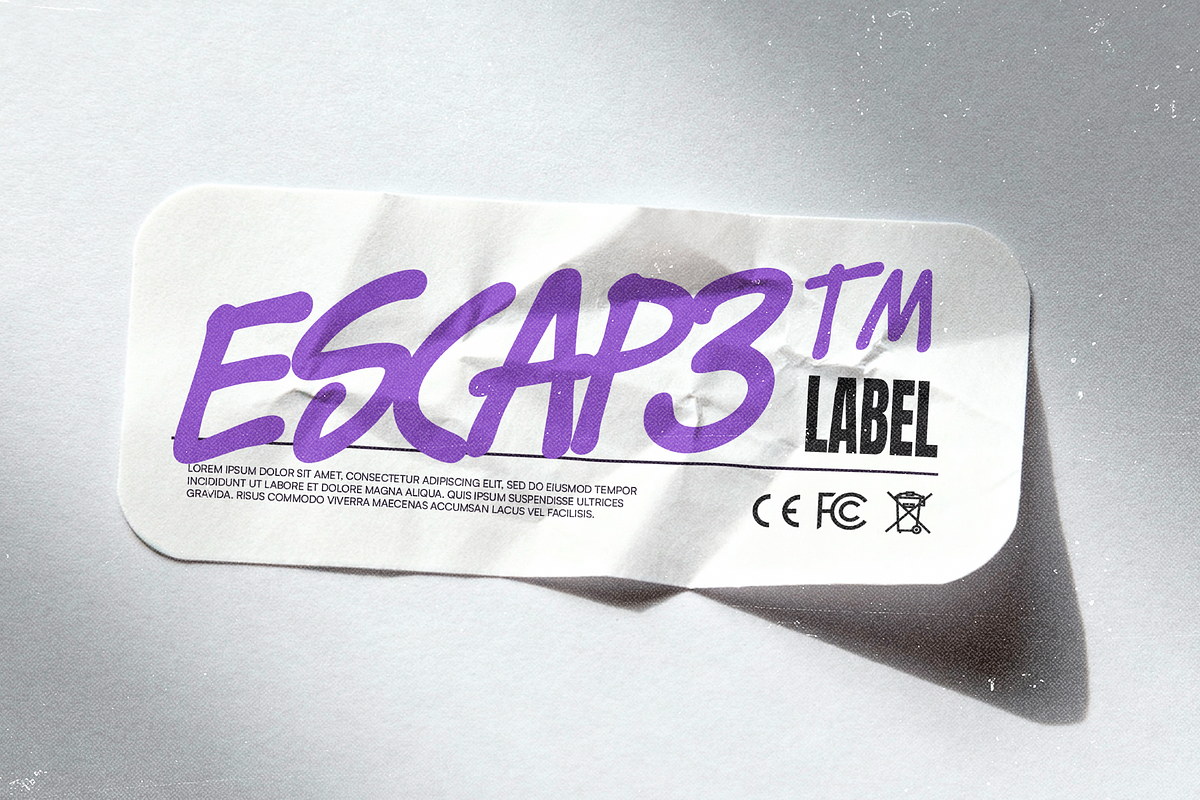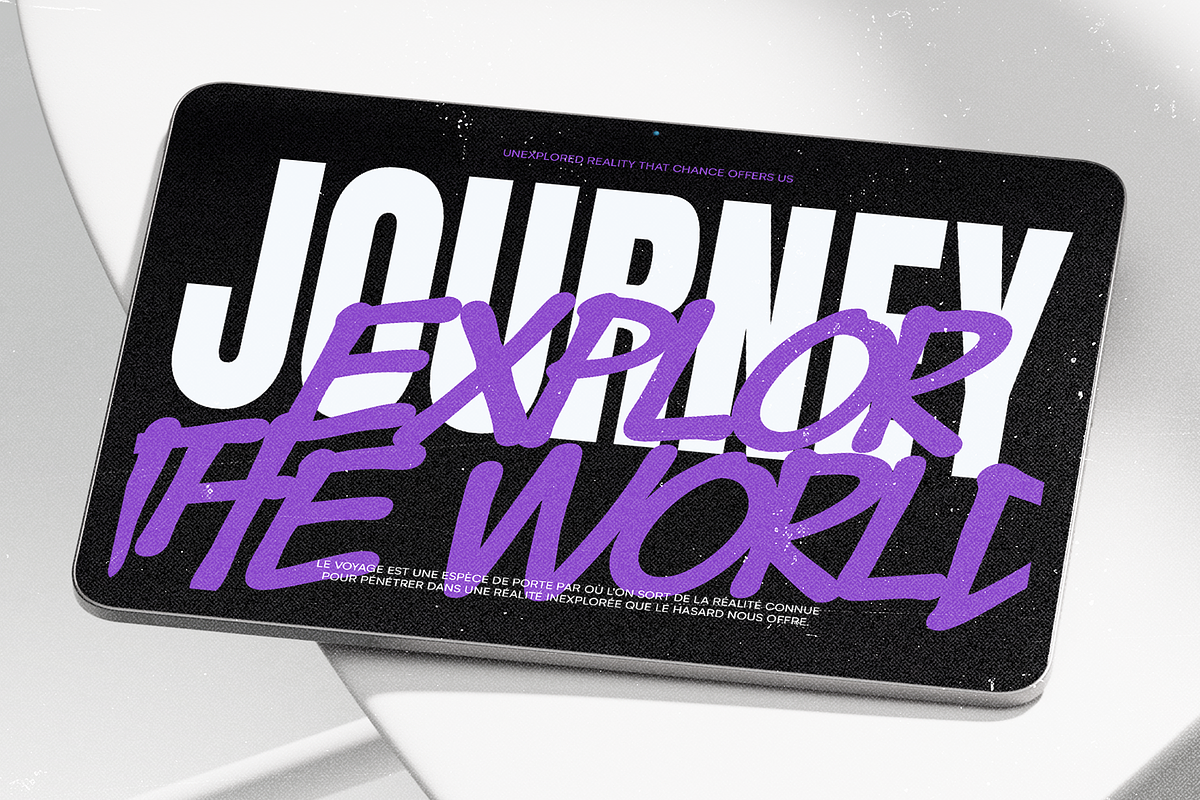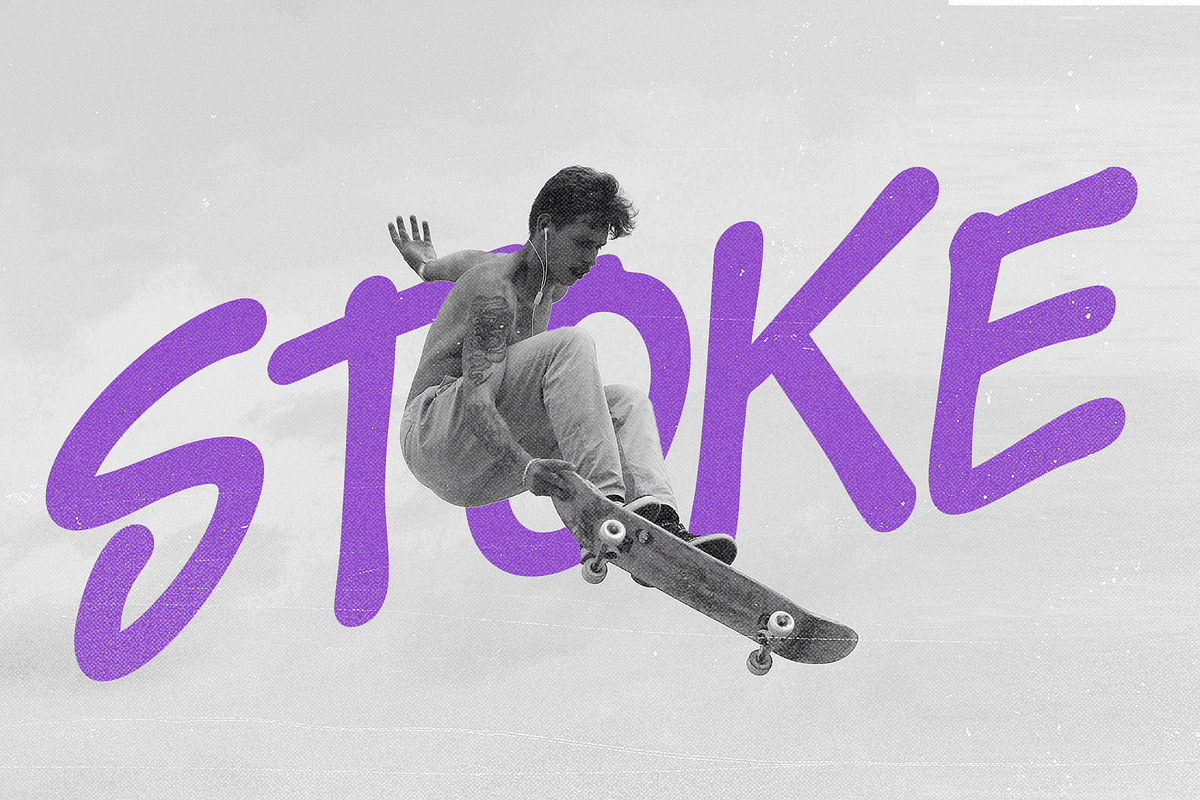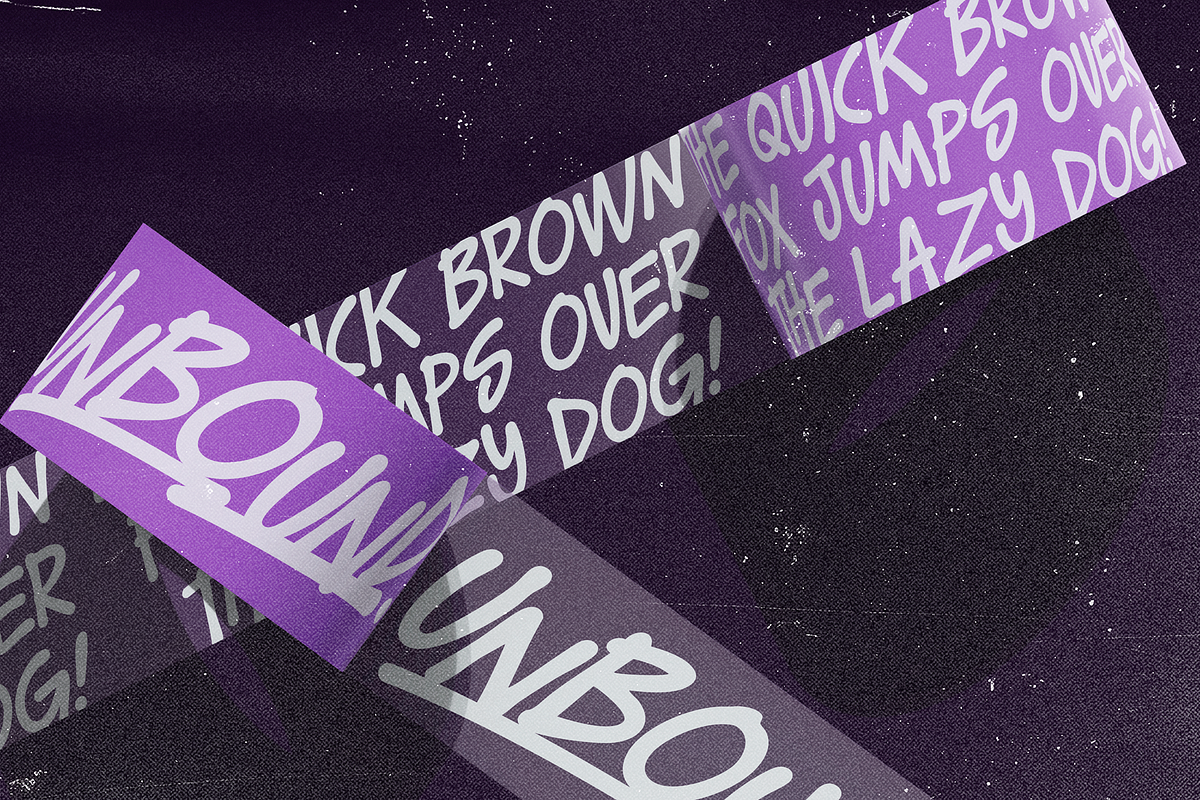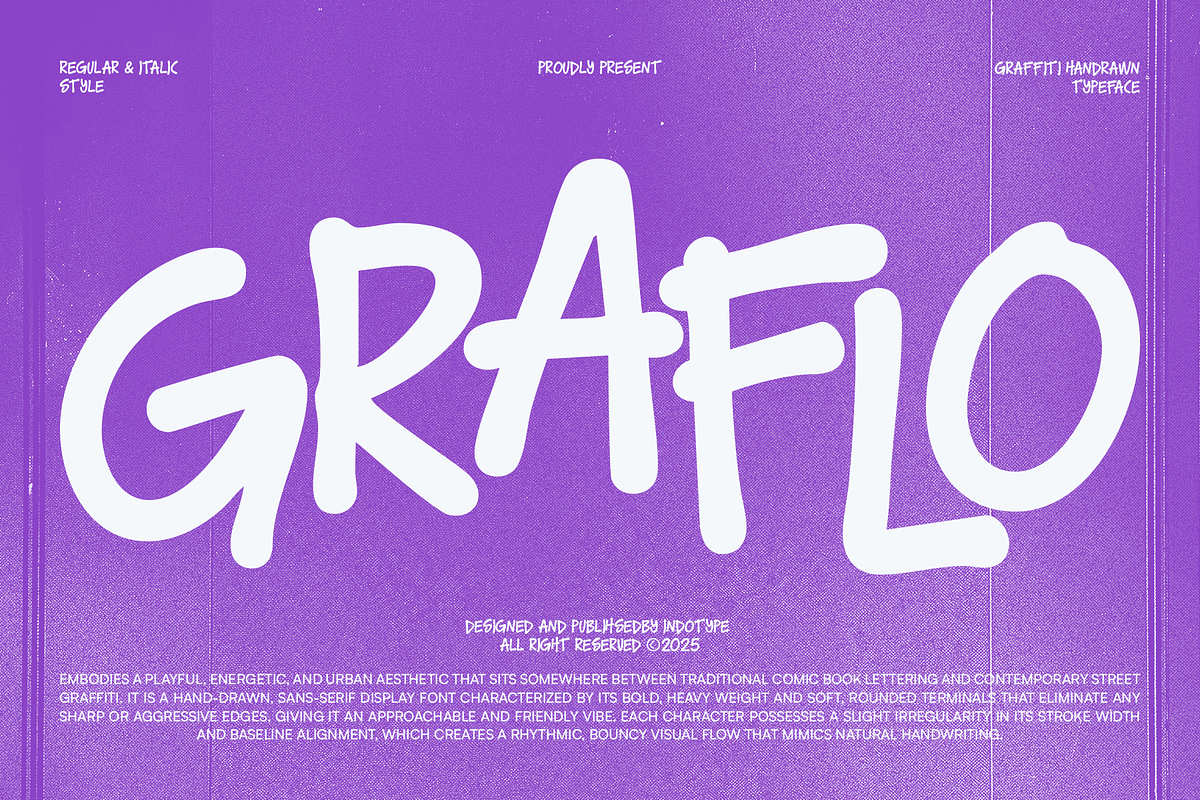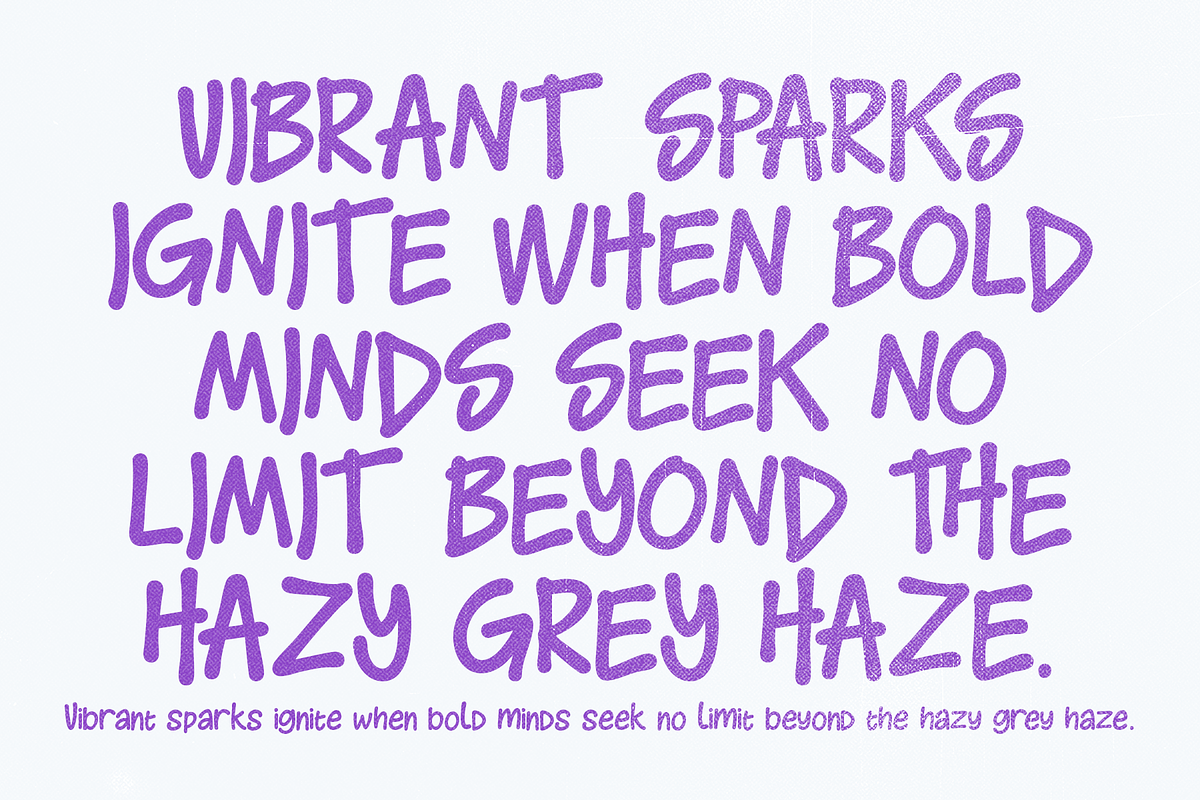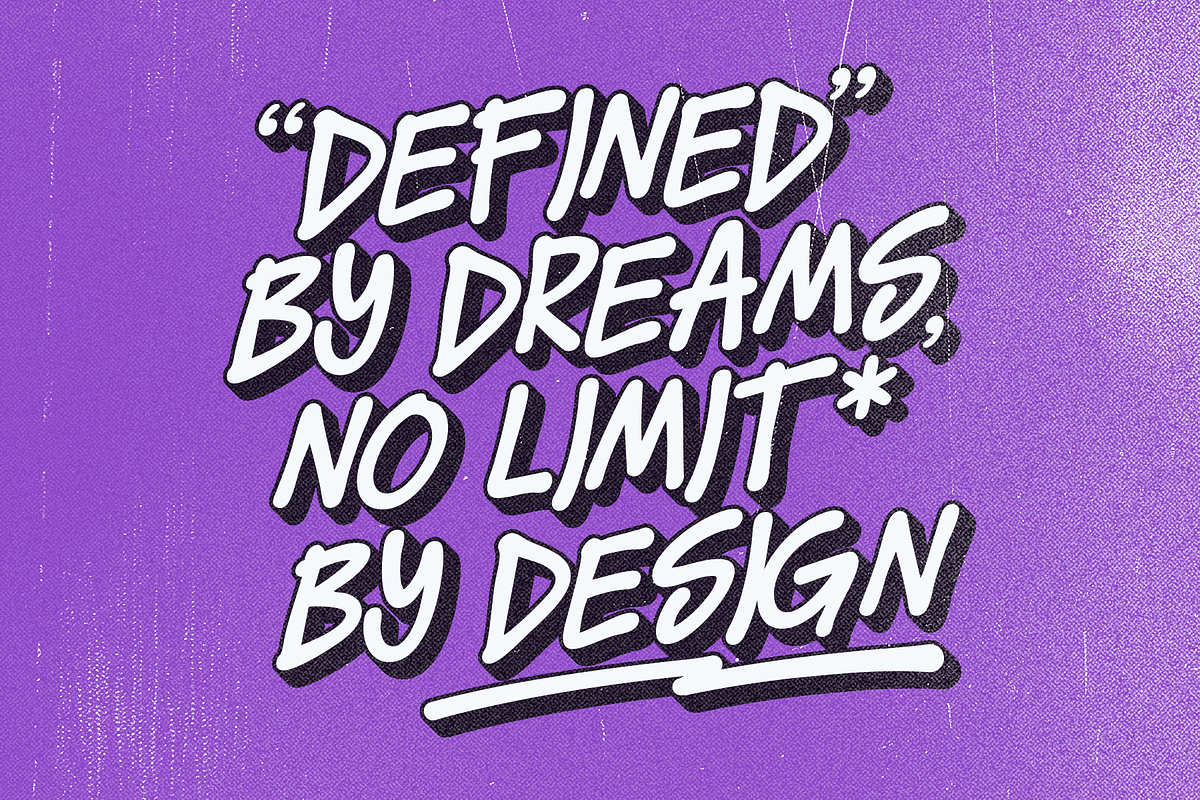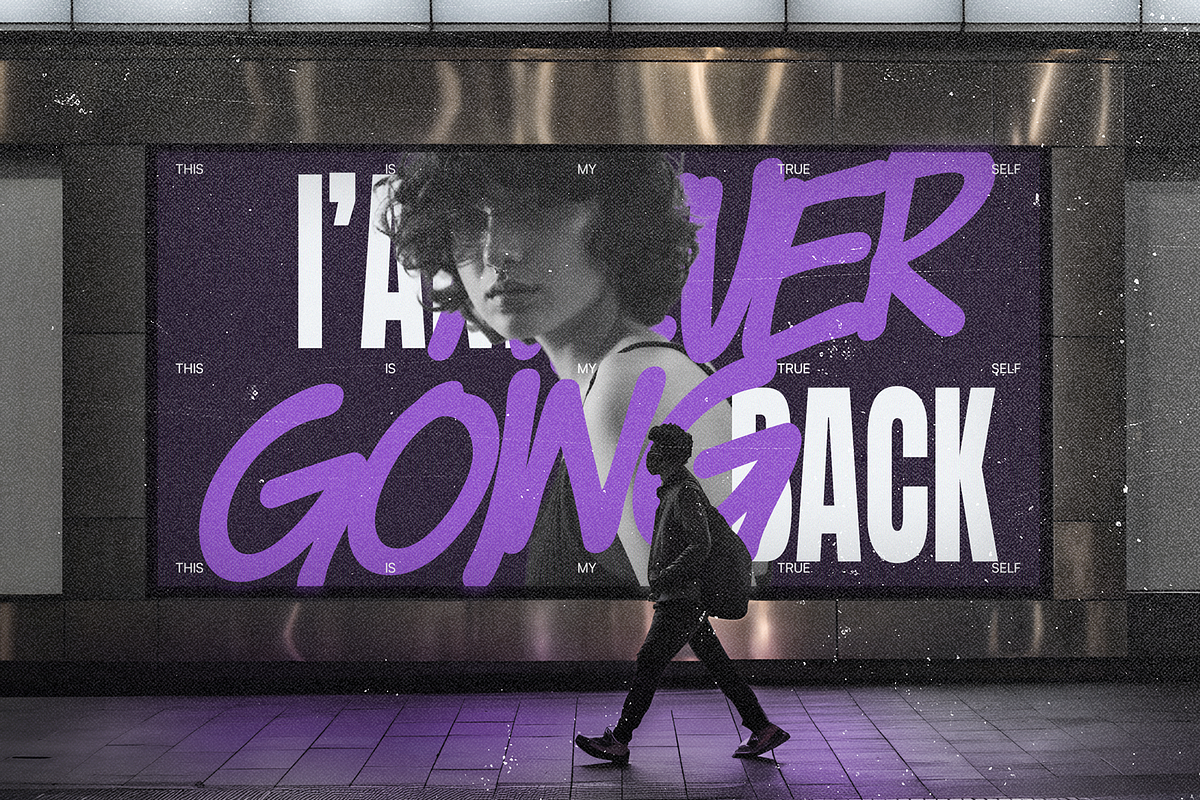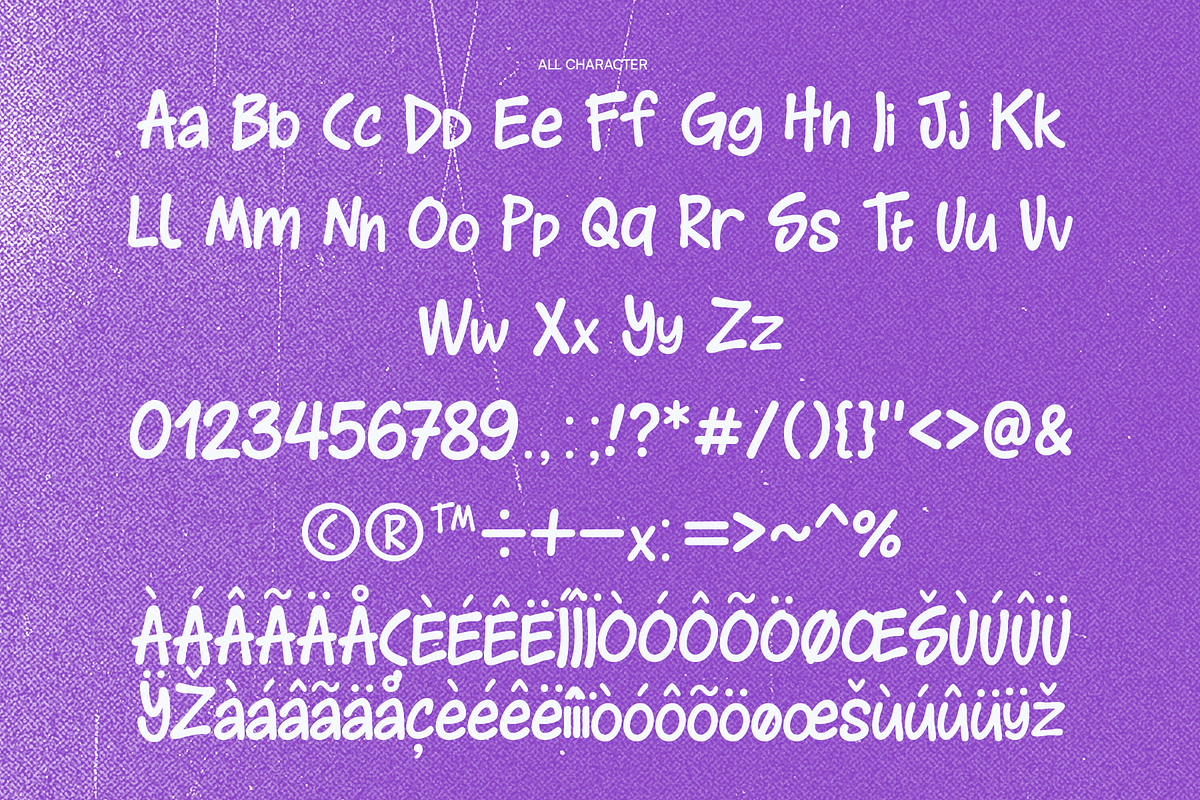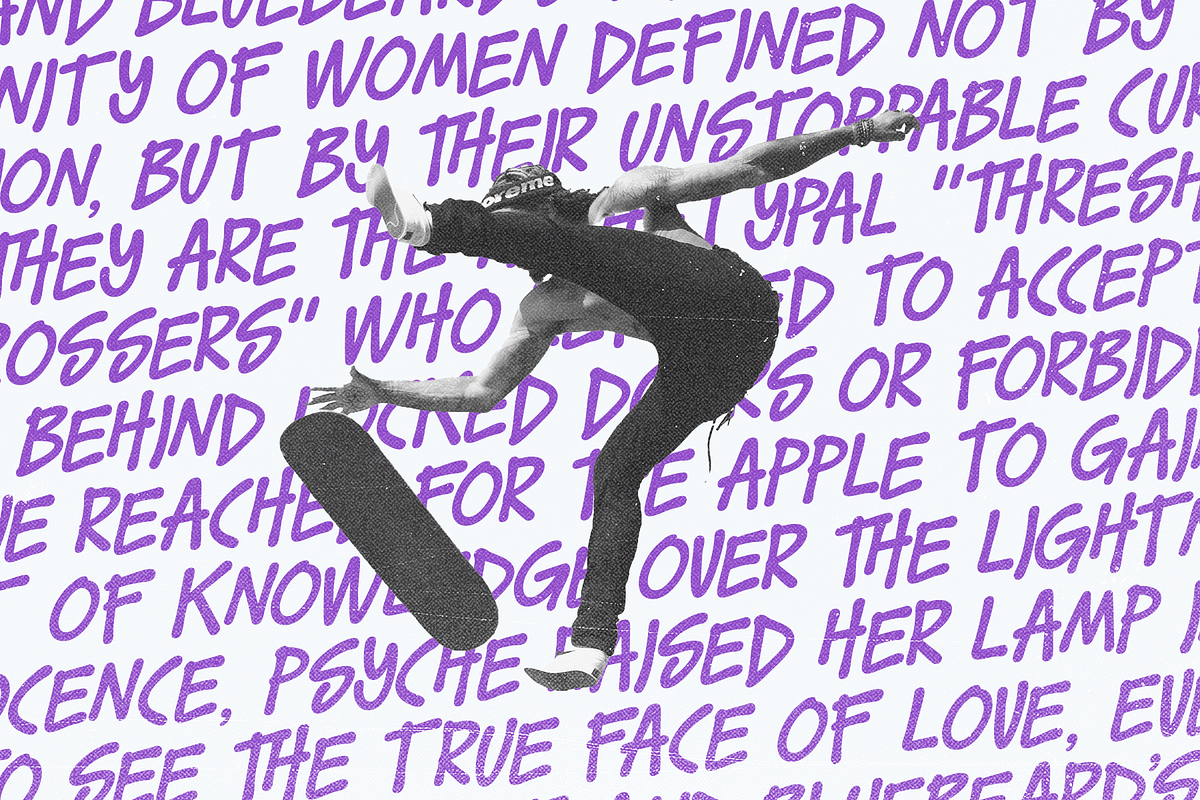
GRAFLO - Urban Street Graffiti
Graflo is a vibrant, hand-drawn display font that lives at the intersection of classic comic book fun and contemporary street art energy. Characterized by its bold, heavy weight and soft, rounded terminals, it eliminates sharp edges to create an approachable and friendly urban aesthetic. The slight irregularities in stroke width and baseline alignment give it an authentic, bouncy rhythm that mimics natural, energetic handwriting. Embodying a playful and energetic spirit, Graflo is perfect for projects that need to feel youthful, creative, and effortlessly cool. Available in both Regular and Italic styles, it’s ideal for streetwear branding, event posters, creative logos, social media graphics, and any design that aims to capture a dynamic, handcrafted urban vibe without the aggression of traditional graffiti.
- Ideal for: Streetwear Branding, Event Posters, Creative Logos, Social Media Graphics, YouTube Thumbnails, Comic Art, Playful Packaging.
- Classification: Display, Handwritten, Graffiti, Sans-Serif.
- Attributes: Playful, Energetic, Urban, Friendly, Bold, Handcrafted, Approachable.